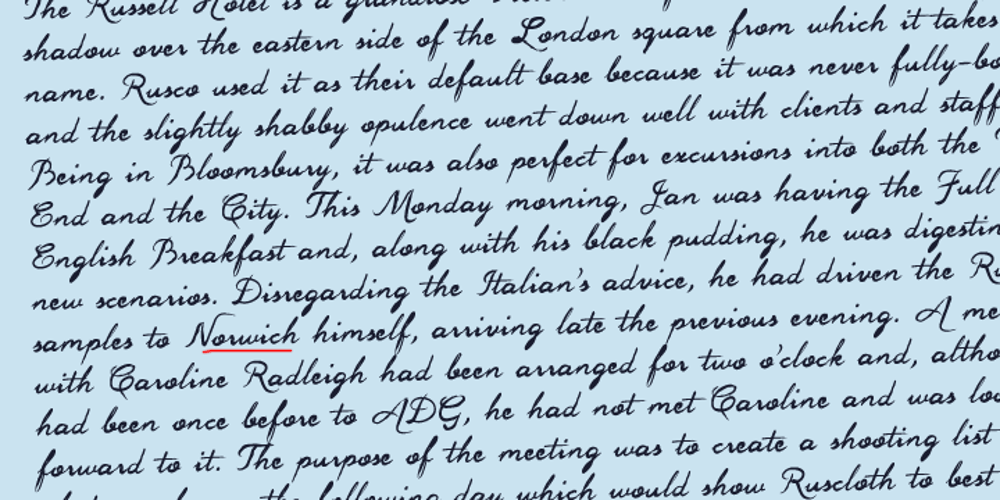
Norwich
Norwich font
Norwich Font Family was designed by Nicholas Garner and published by AVP. Norwich contains 1 styles and family package options. Norwich is a grungy version of the font Tenison and provides real blobby pen handwriting.